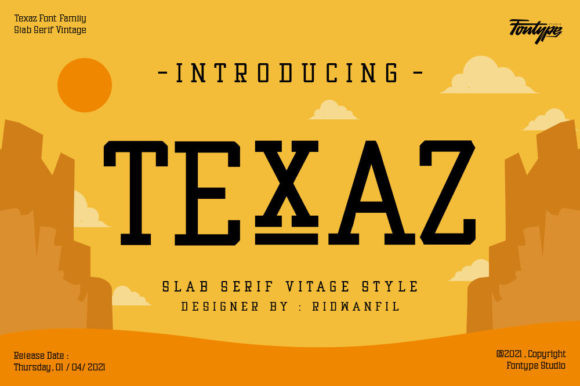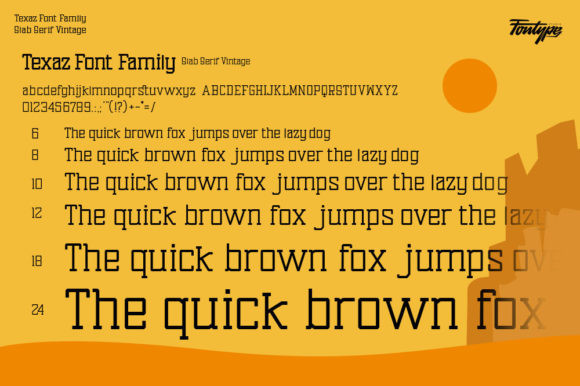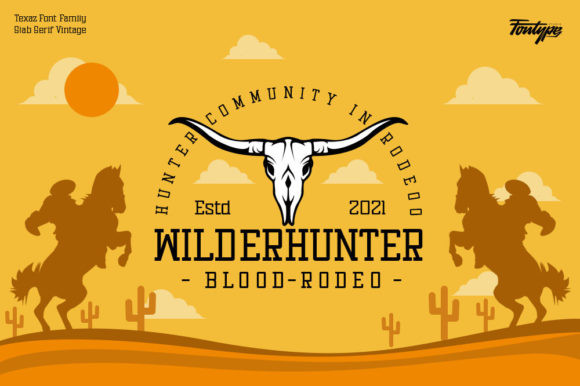
Texaz Font
Texaz is a bold, vintage looking slab serif font. No matter the topic, this font will be an incredibly asset to your fonts’ library, as it has the potential to elevate any creation.